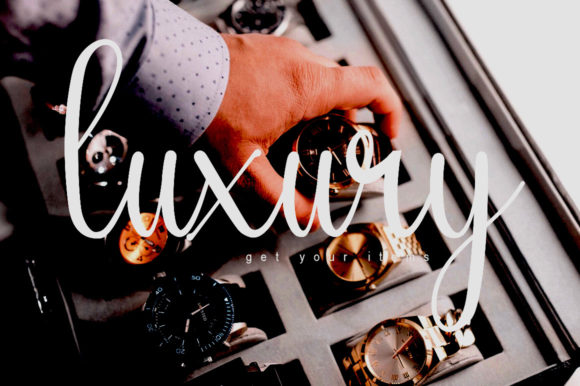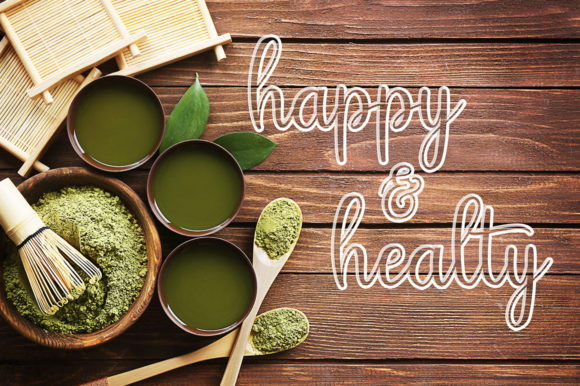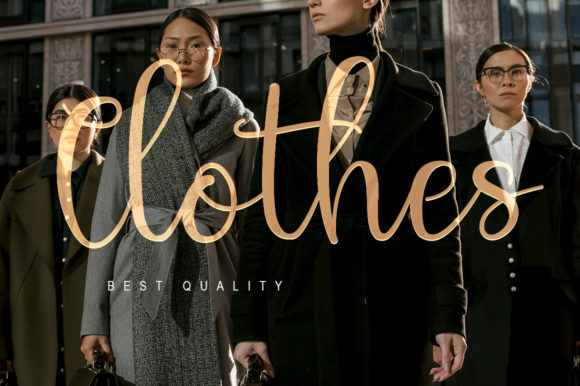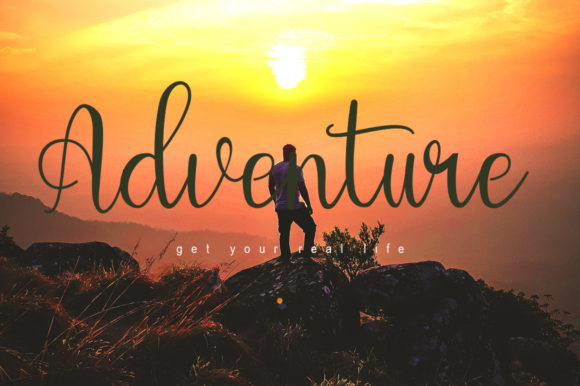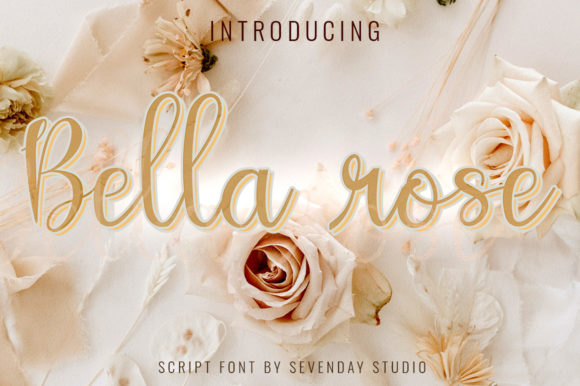
Bella Rose Font: Elevate Your Designs with Elegance and Sophistication
In the world of design, fonts play a crucial role in conveying the tone and aesthetic of a project. Whether you’re creating an invitation card, flyer, or event poster, the right font can make all the difference. Introducing Bella Rose, a delicate script font designed to add a touch of class, elegance, and modernity to your designs. In this article, we’ll explore the features and benefits of Bella Rose, and how it can elevate your designs to the next level.
What is Bella Rose Font?
Bella Rose is a beautiful script font crafted for designers and crafters who require high-quality typography for their projects. Its intricate and flowing lines evoke a sense of sophistication and luxury, making it perfect for designs that demand a touch of elegance. With its modern look and feel, Bella Rose is an excellent choice for a wide range of applications, from logos and branding to invitations, stationery, and wedding designs.
Key Features of Bella Rose Font
- Delicate Script Style: Bella Rose boasts a delicate script style that adds a touch of femininity and elegance to any design.
- High-Quality Typography: With its high-quality typography, Bella Rose is perfect for designs that require clear and legible text, such as invitations, flyers, and event posters.
- Classy and Modern Look: The font’s classy and modern look makes it an excellent choice for logos, branding, and social media posts.
- Versatile: Bella Rose can be used for a wide range of applications, including wedding designs, stationery, and more.
Benefits of Using Bella Rose Font
So, why choose Bella Rose for your designs? Here are just a few benefits of using this beautiful script font:
- Adds Elegance and Sophistication: Bella Rose adds a touch of elegance and sophistication to any design, making it perfect for high-end brands and luxury products.
- Enhances Readability: The font’s high-quality typography ensures that your text is clear and legible, making it easy for readers to understand your message.
- Increases Versatility: With its versatile design, Bella Rose can be used for a wide range of applications, from print materials to digital designs.
- Unique and Creative: Bella Rose’s delicate script style sets it apart from other fonts, giving your designs a unique and creative edge.
How to Use Bella Rose Font
Using Bella Rose is easy! Here are a few tips to get you started:
- Pair it with Other Fonts: Pair Bella Rose with other fonts to create a unique and visually appealing design.
- Use it for Headings and Titles: Use Bella Rose for headings and titles to add a touch of elegance and sophistication to your designs.
- Experiment with Colors and Textures: Experiment with different colors and textures to add depth and interest to your designs.
In conclusion, Bella Rose is a beautiful script font that can elevate your designs to the next level. With its delicate script style, high-quality typography, and classy and modern look, it’s perfect for designers and crafters who require elegant and sophisticated typography for their projects. Whether you’re creating invitations, flyers, event posters, or social media posts, Bella Rose is an excellent choice. So why wait? Download Bella Rose today and add a touch of elegance and sophistication to your designs!
Recommended for: Invitation cards, flyers, event posters, logos, branding, wedding designs, stationery, social media posts, and more!